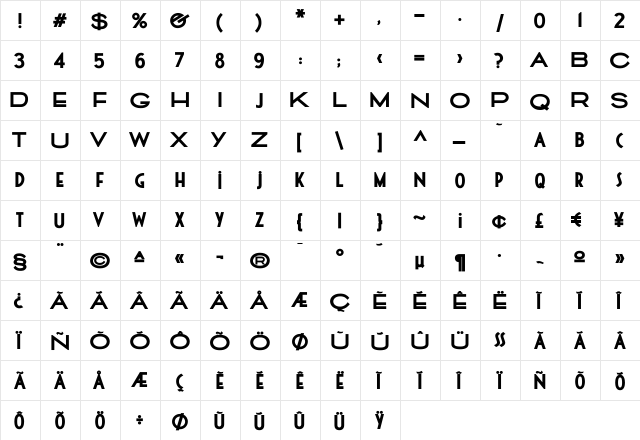
Cassandra XBold Regular
Design Context for Cassandra XBold Typeface
Cassandra XBold is a composed and adaptable typeface that performs quietly and consistently across a wide range of design contexts. Its bold stroke weight gives it real presence on the page.